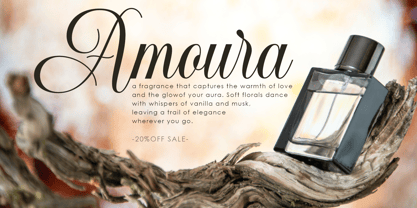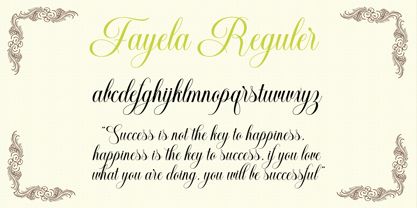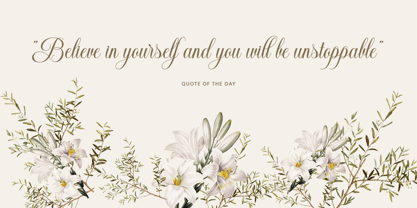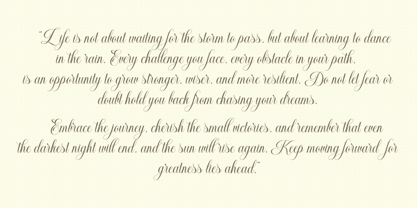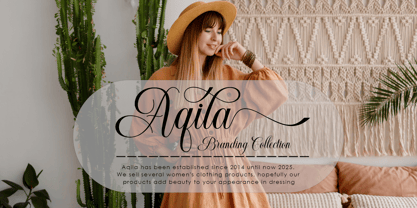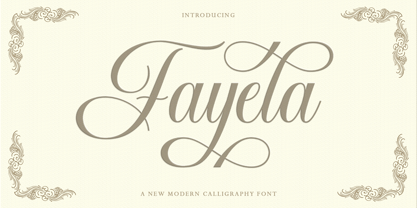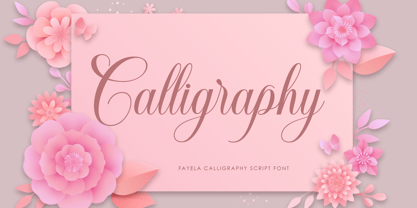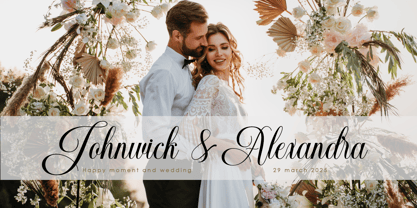
Fayela
Fayela is a calligraphy script font born from the imagination of a love letter writer from the past and brought to life in a modern digital form. Each stroke is like a soft whisper that carries an emotional, gentle, and alluring message. ✦ Unique Characteristics:
Lyrical & Emotional Touch: A handwritten style that conveys deep emotions—as if each letter was written with a trembling heart.
Graceful and Flowing Strokes: The curves of the letters are like the dance of the wind in a flower field; not too complicated, but charming in a natural way.
Artistic Thin-Thick Contrast: Features subtle changes in pen pressure, creating an elegant visual dynamic.
Unique Artistic Accents: Each character has a small “signature”—like a final stroke that is left a little wild but still beautiful.
Luxury branding that wants to appear intimate and warm.
Digital love letters or invitations that bring a sense of nostalgia.
Poetry book covers, personal journals, or designs that want to show a humanistic side.
✦ Philosophy Behind the Name:
"Fayela" comes from a fictional word inspired by fable and bella—a beautiful story written in letters. This font is not just a typography, but a fragment of feelings formed into visuals.